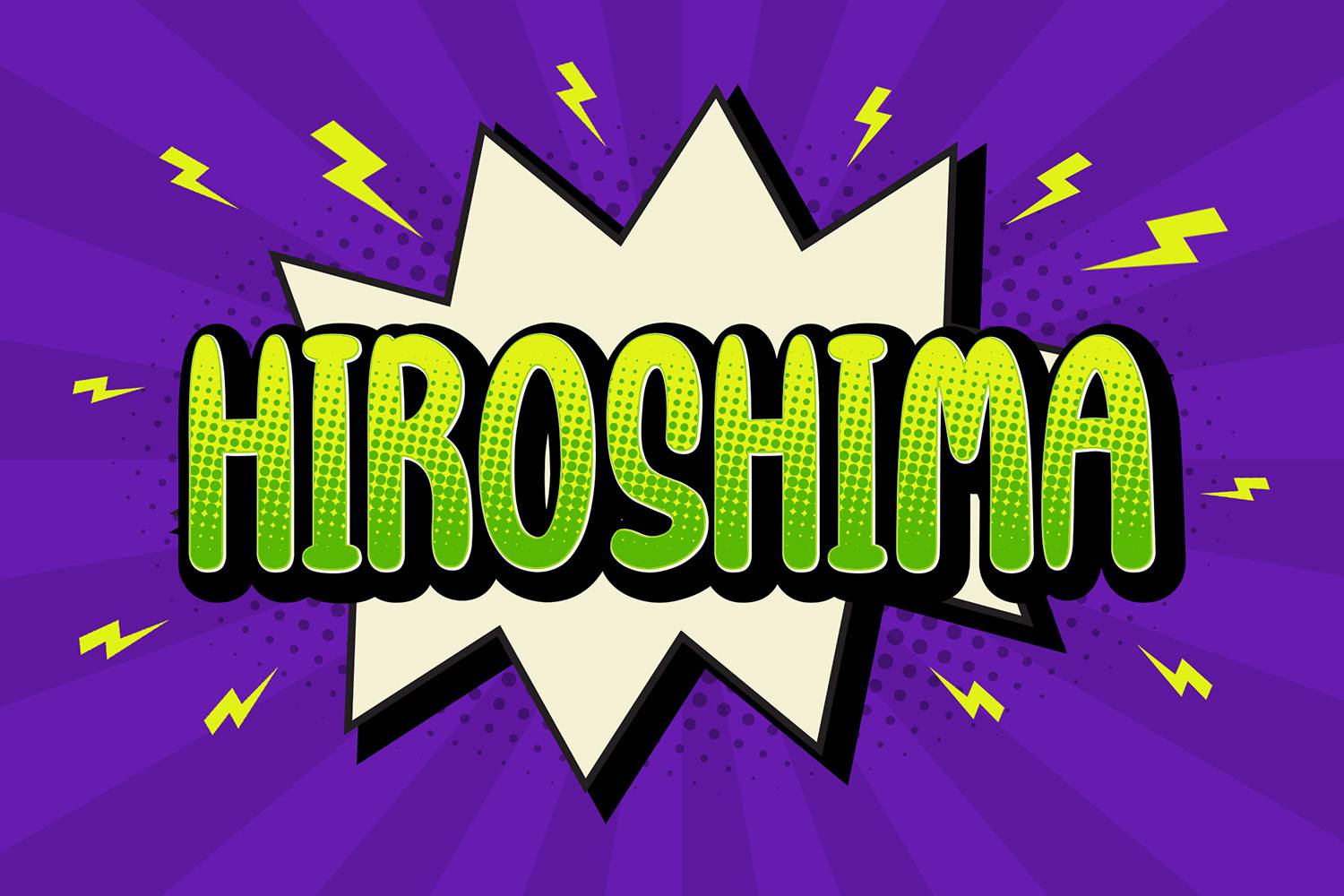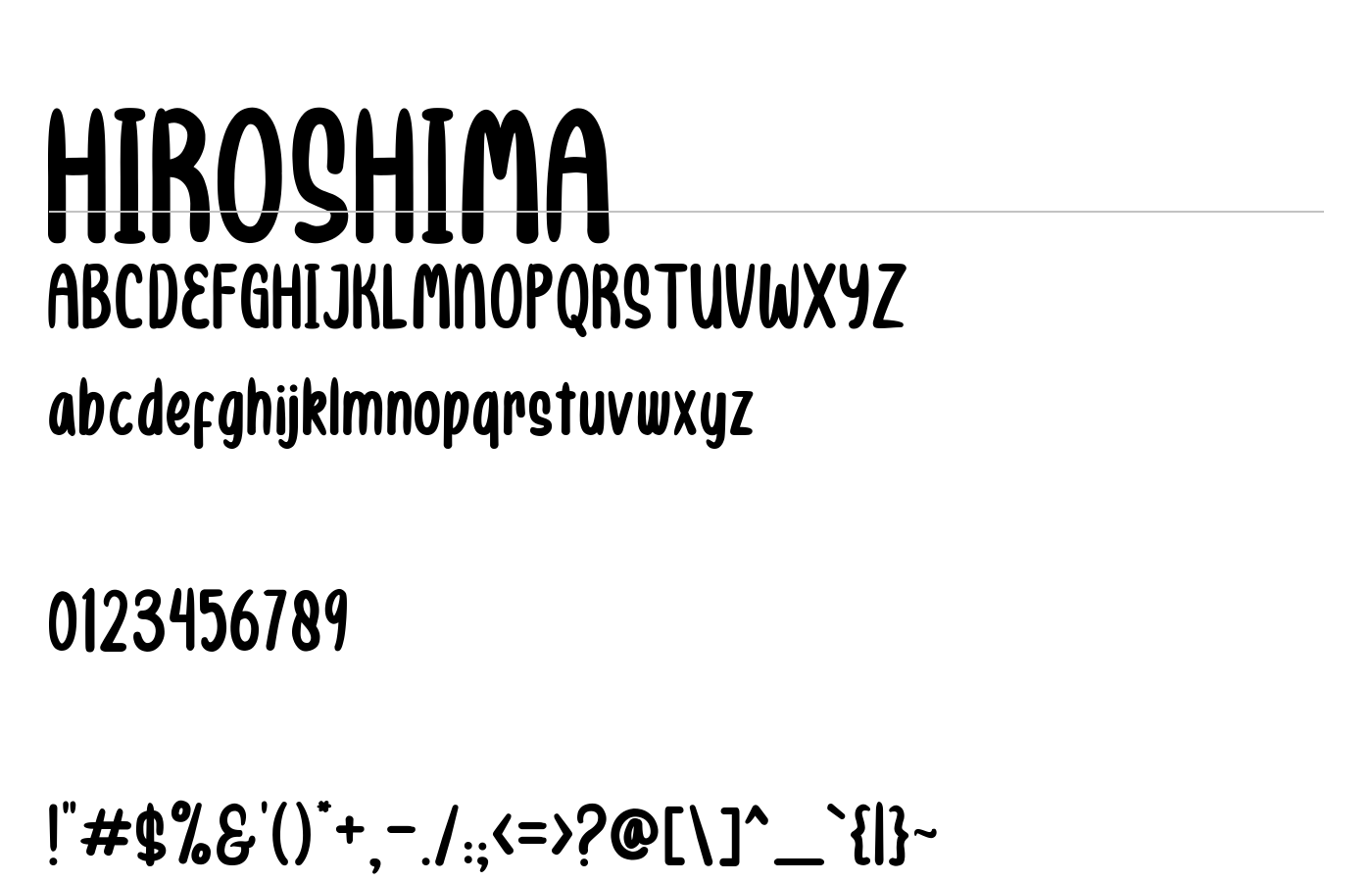
Hiroshima Font is a playful and rounded sans serif typeface with a tall, narrow structure and smooth, slightly quirky letterforms that convey a friendly and approachable vibe. Its consistent stroke weight and unique character shapes make it ideal for informal branding, children’s materials, and creative headlines where a warm, modern, and casual tone is desired. This font works well in contexts that seek to engage with a youthful, fun-loving audience while maintaining legibility and charm.
Hiroshima Font
About Hiroshima Font